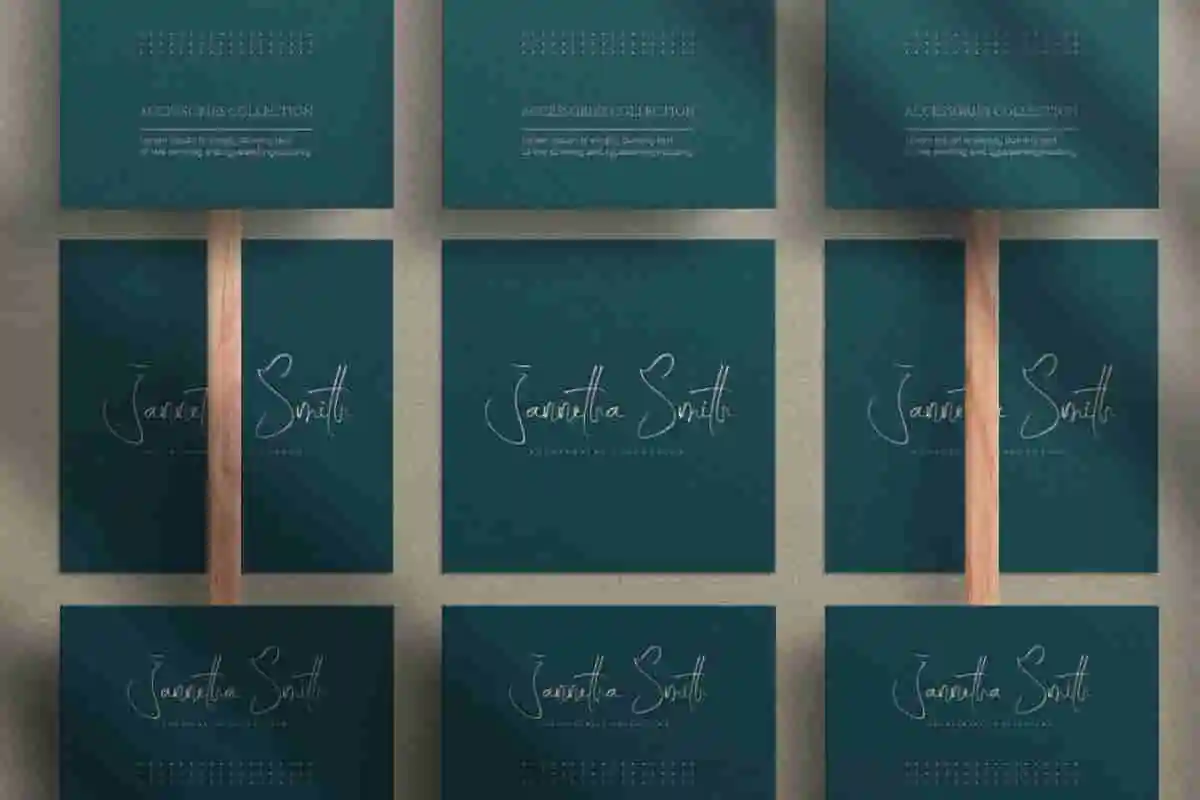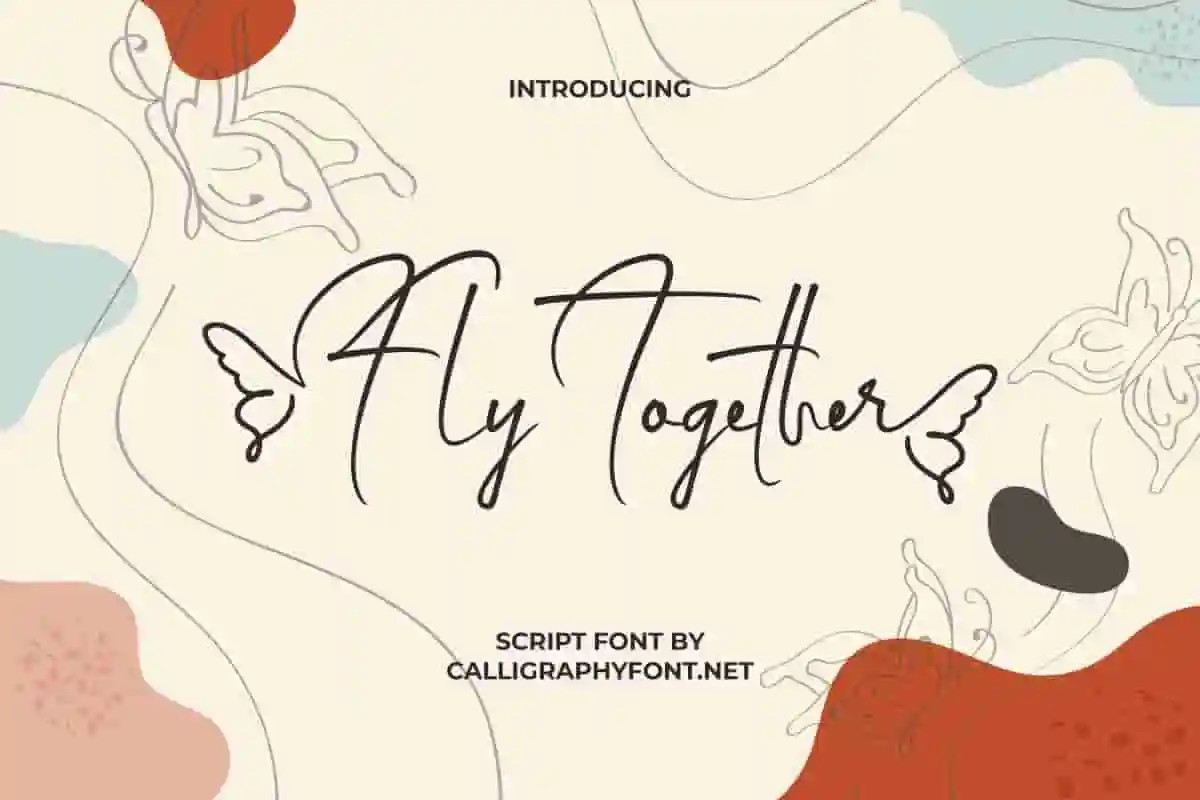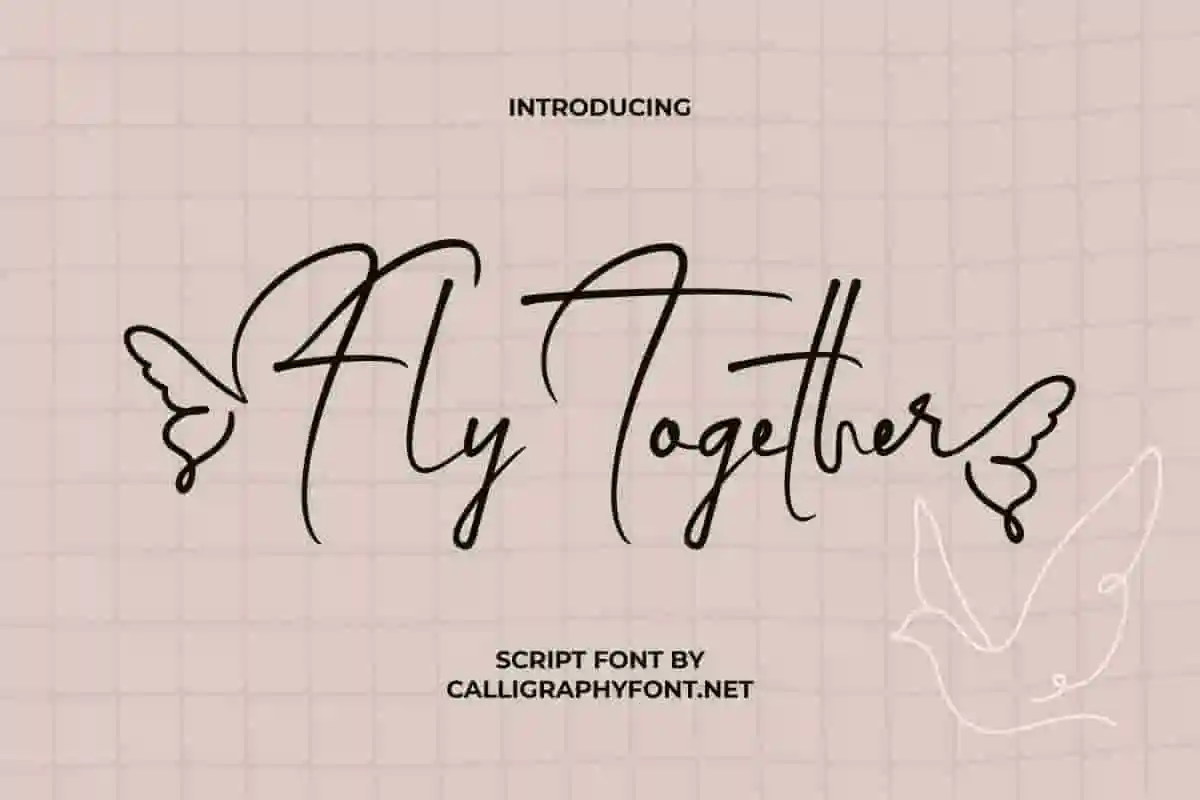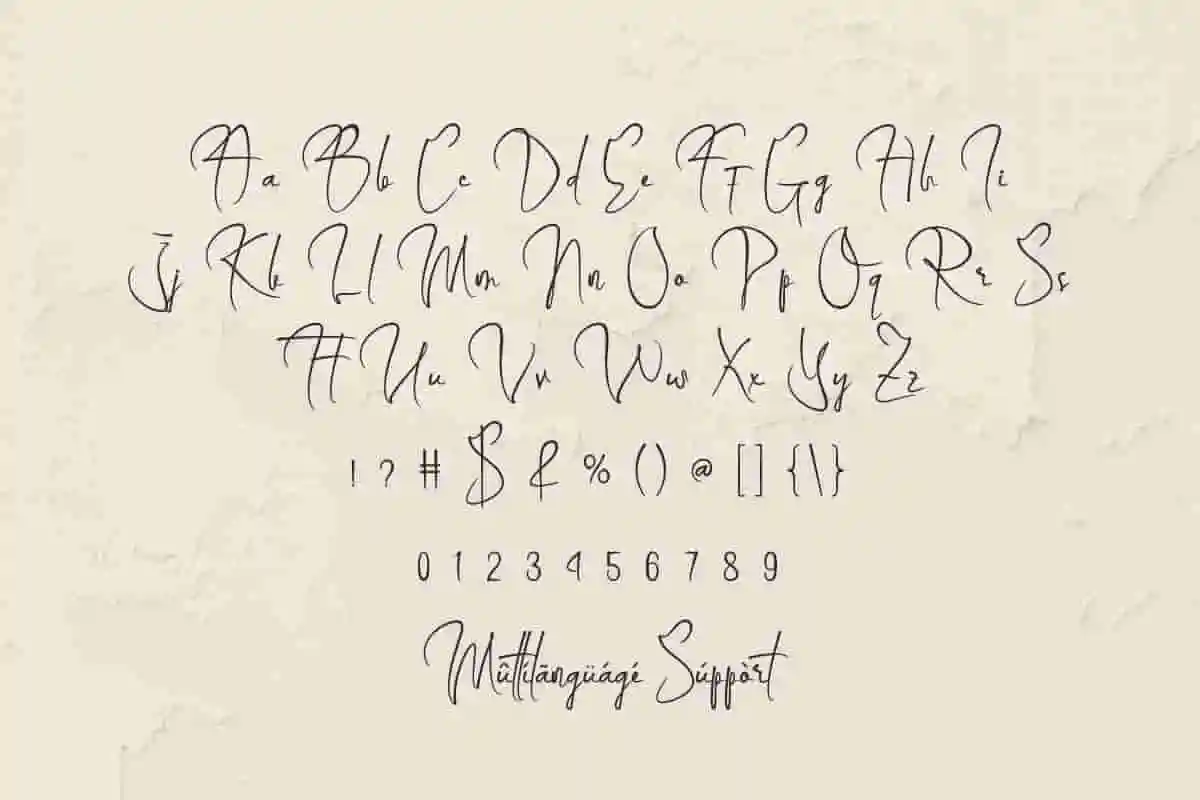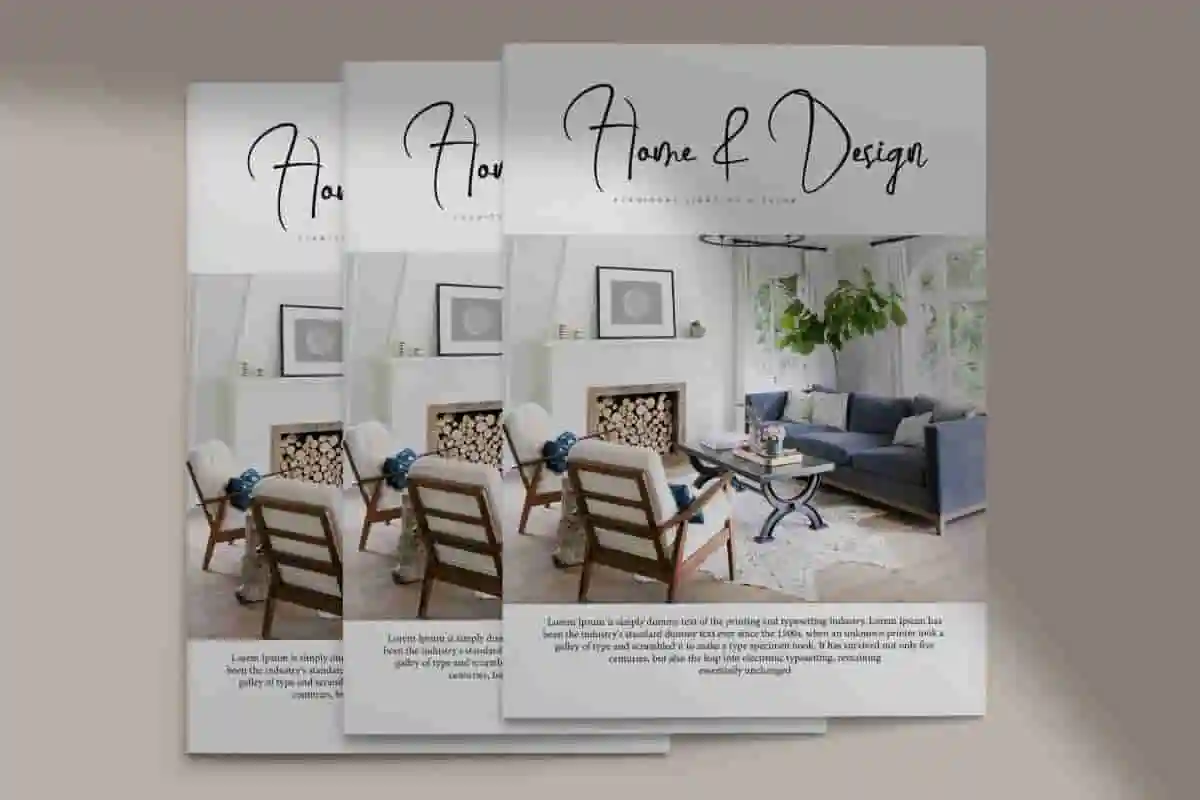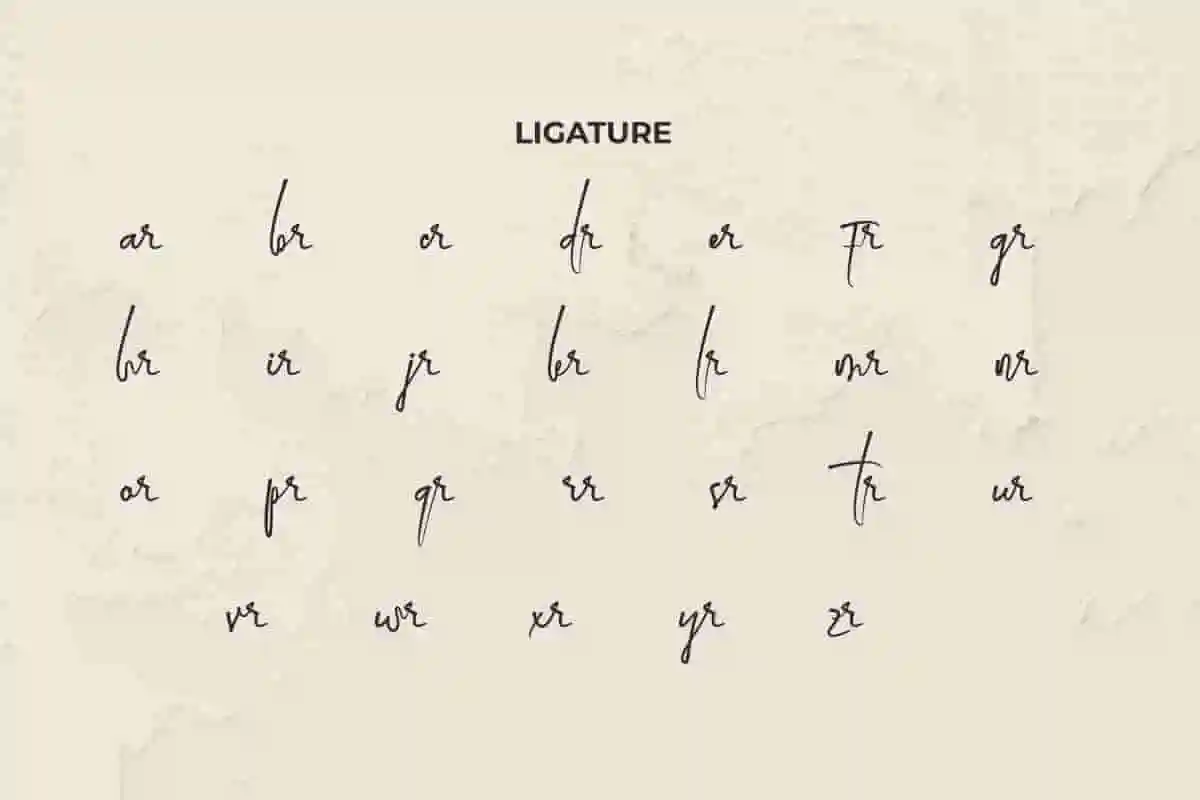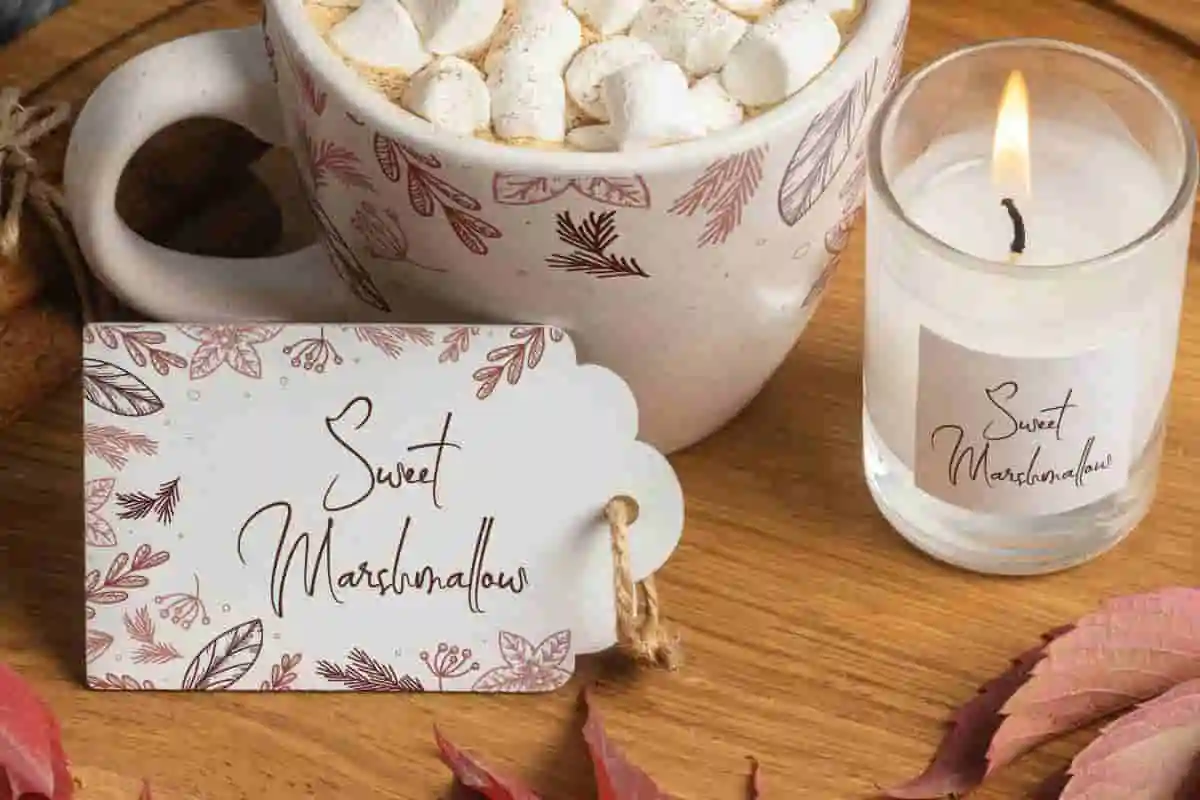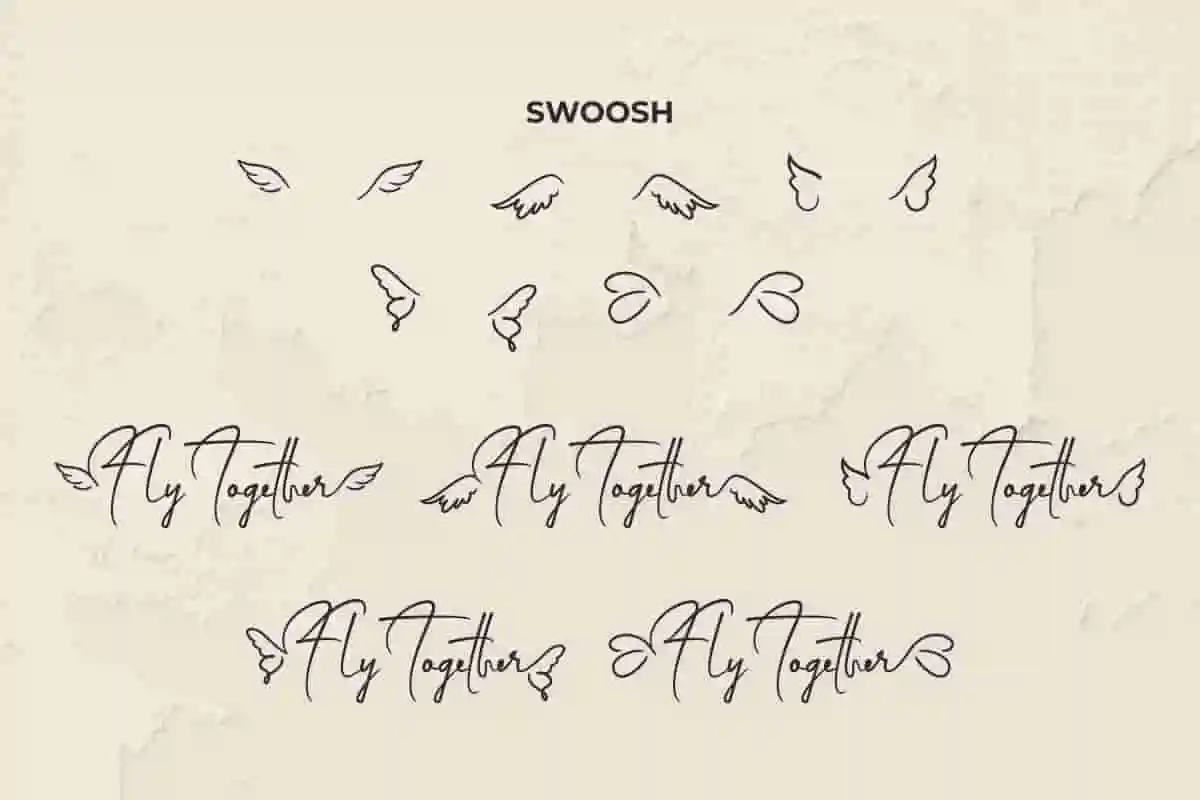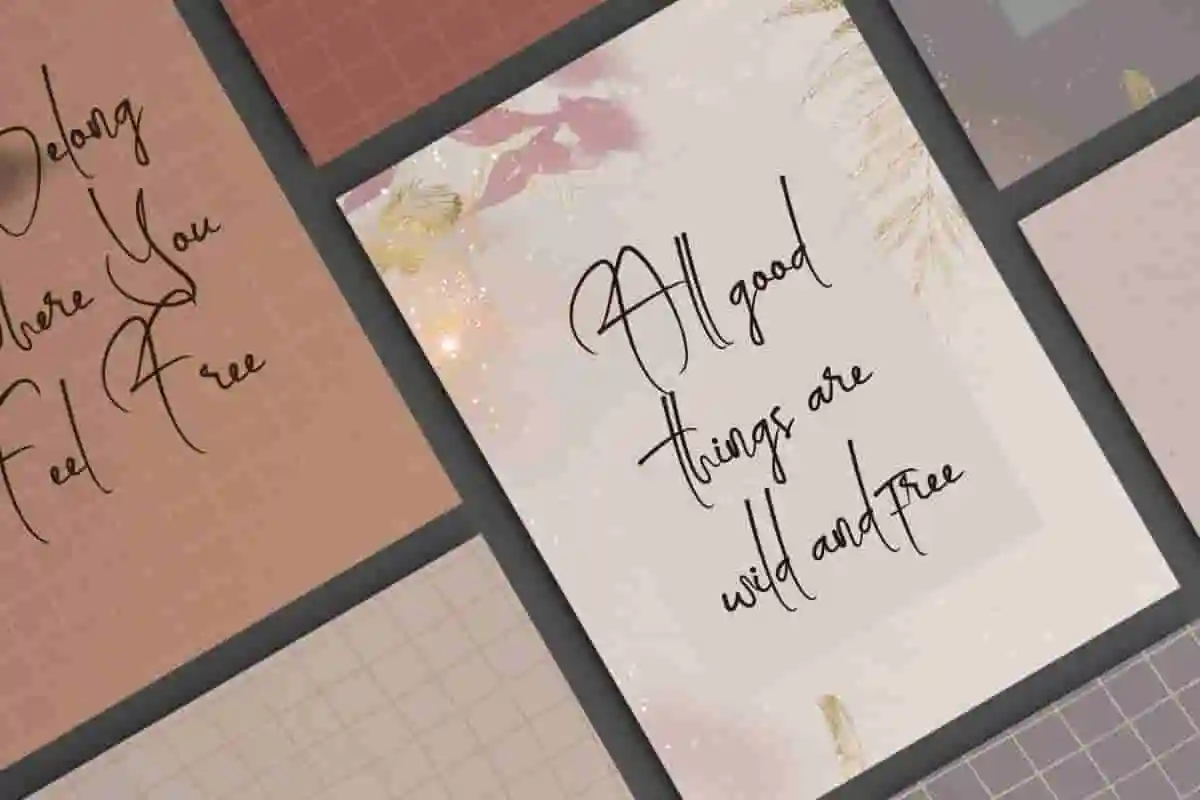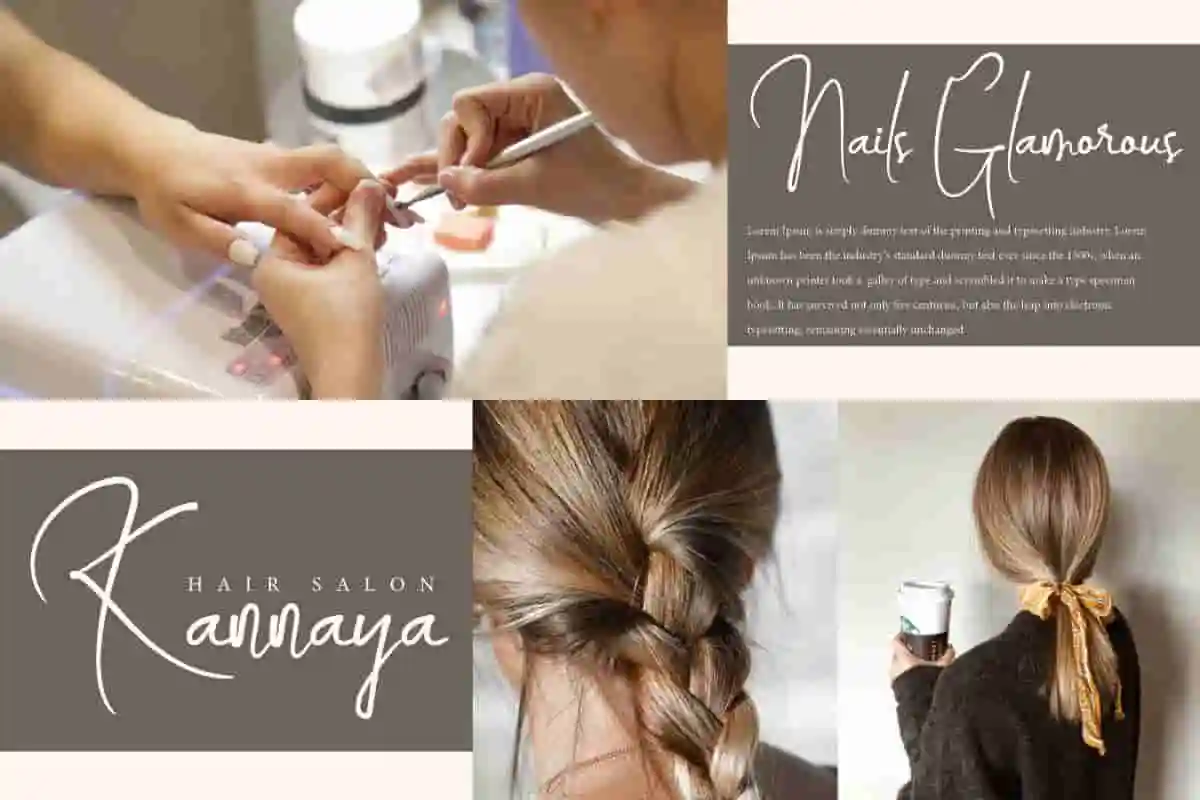
Fly Together Handwriting Font
Fly Together Font is a unique handwriting script font with decorative lines. The font will be perfect for brochure, clothing brand, greeting card design, or simply use it in your background writing.
Fly Together Font is a unique decorative handwriting font created by Calligraphy Fonts.net. The font has a sleek and thin shapes, making it authentic, perfect for your creative projects such as : brand logo, brochure, business card, catalog, header, invitation, label, quote, stationery, website, and much more.
Introducing Fly Together Handwriting Font, a beautifully crafted handwritten font designed to bring a warm, authentic touch to your creative projects. Perfect for designers, entrepreneurs, and content creators looking to add personality and charm, this font captures the natural flow of genuine handwriting with effortless style. Whether you’re creating branding materials, social media graphics, invitations, or personal projects, Fly Together offers a fresh, casual vibe that feels personal and inviting.
Introducing Fly Together Handwriting Font, a fresh and authentic handwritten typeface designed to add warmth and personality to your creative work. This font perfectly replicates natural handwriting, giving your projects a personal and heartfelt touch. Whether you’re designing wedding invitations, branding, social media posts, or custom stationery, Fly Together offers a unique, casual style that makes your message feel genuine and approachable.
Introducing Fly Together Handwriting Font, a unique and stylish handwritten font designed to add personality, warmth, and authenticity to your creative projects. This font captures the natural beauty of real handwriting, giving your designs a fresh, personal feel that stands out. Ideal for branding, wedding invitations, social media posts, blog graphics, and custom stationery, Fly Together effortlessly blends casual elegance with artistic flair.
• Authentic Handwritten Style
• Versatile Usage
Fly Together Font will be perfect for many industries, such as cosmetics, boutique, café, furniture, handicraft, homeware, publishing, restaurant, salon, and anything that requires a modern look. Presents a font that is aesthetically pleasing and perfect in form and legibility, making it a great choice for primary text or in combination with other types of fonts.
Fly Together Font comes with a full set of Uppercase and Lowercase Basic Characters, Number, a large range of Punctuation and Symbol, also Ligature, and Swoosh. Ready to use both on Windows machine or Mac with simple installations. It’s tested to work well in the Adobe Apps (Illustrator, Adobe InDesign, Adobe Photoshop) CorelDraw, and others. It supports multilingual characters. PUA Encode Characters means you can access all the characters easily – Fully accessible without additional design software.